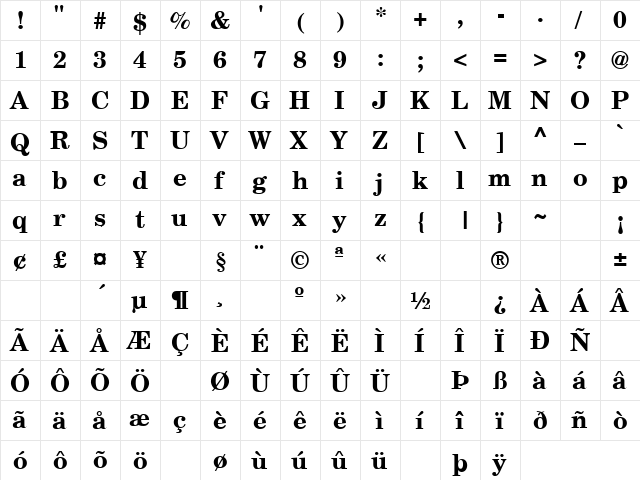
Adam's Apple 2 Regular
Design Context for Adam's Apple 2 Typeface
Adam's Apple 2 takes a measured approach to typography — its balanced proportions and neutral character make it a reliable workhorse for both digital and print work.